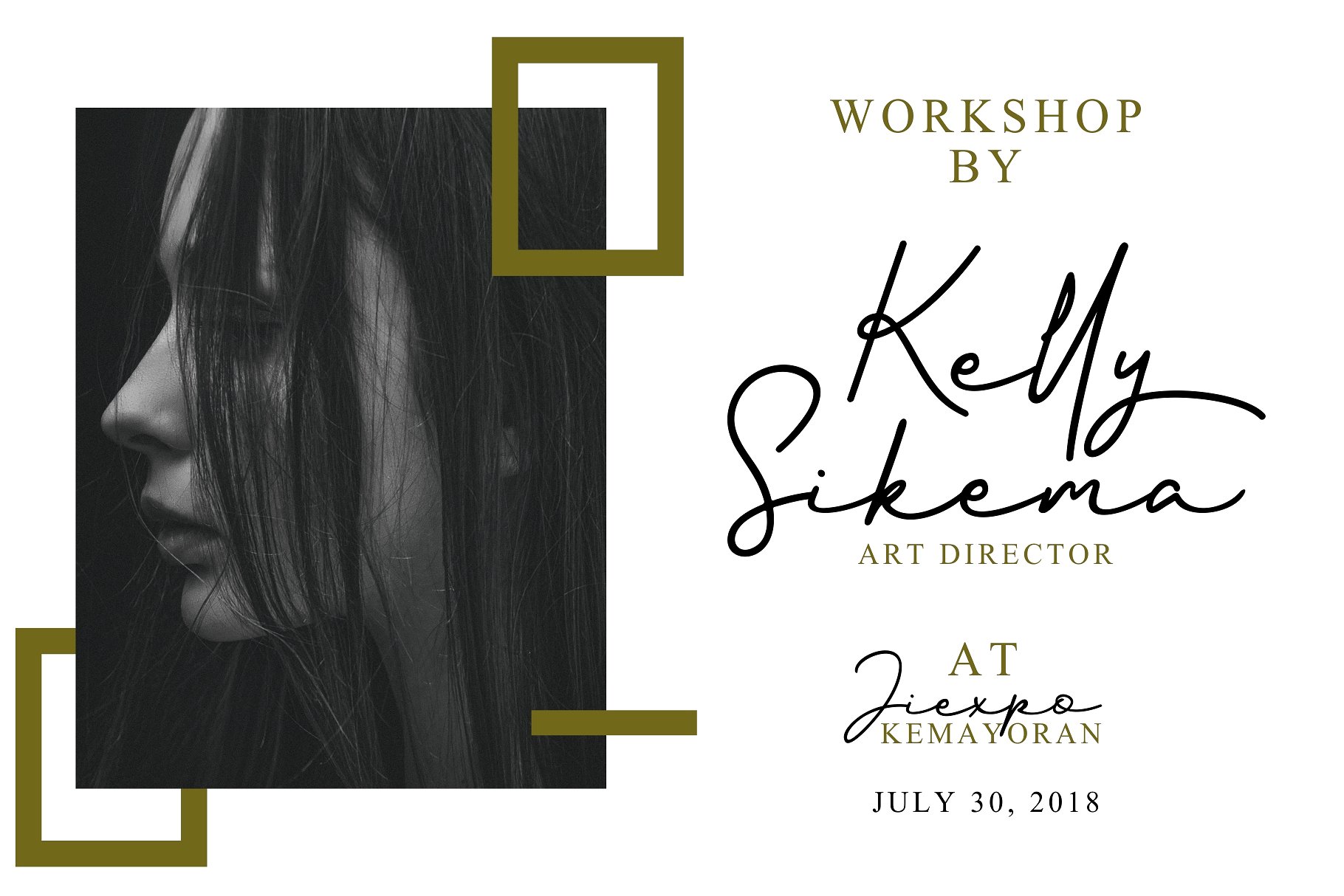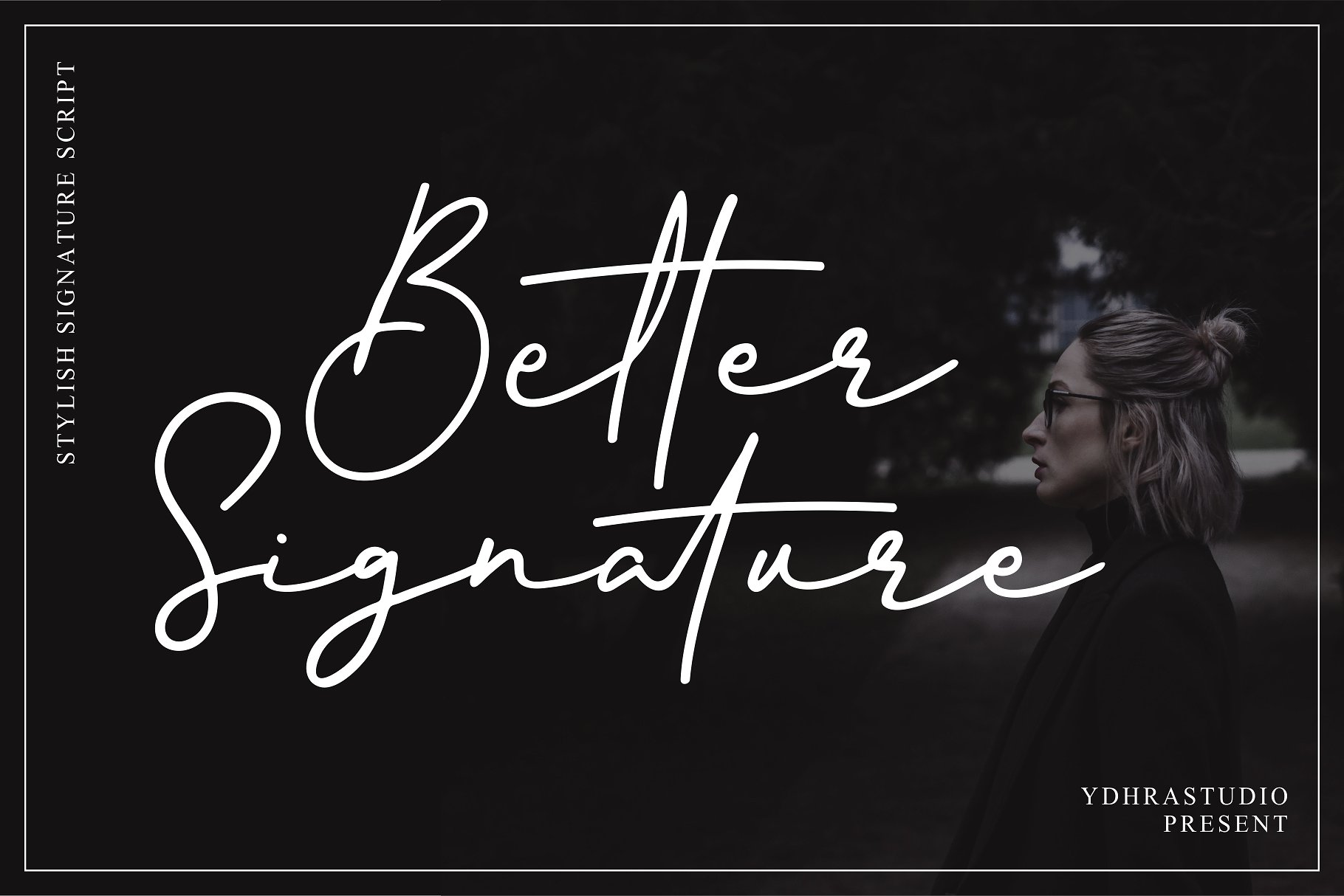
Better
Better Signature Font
Better Signature is a signature font that you can use to make a design for logo branding, poster headline, magazines, book titles, business cards, beautiful fashion designs, advertisements, product designs, wedding invitation, signature or handwritten quote.